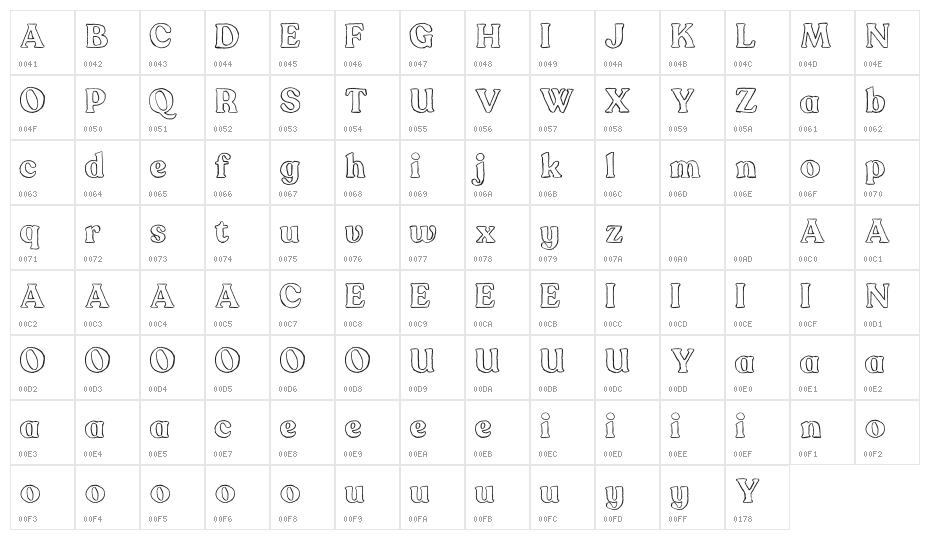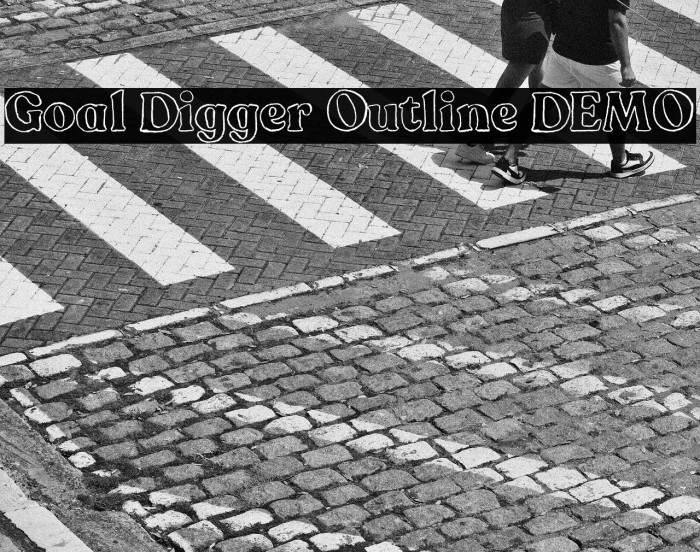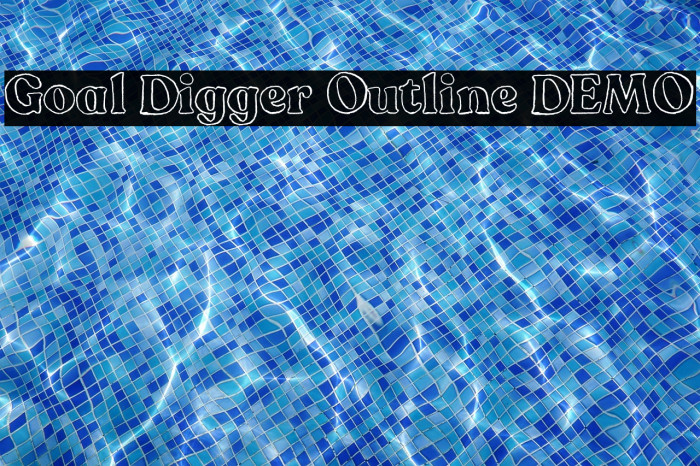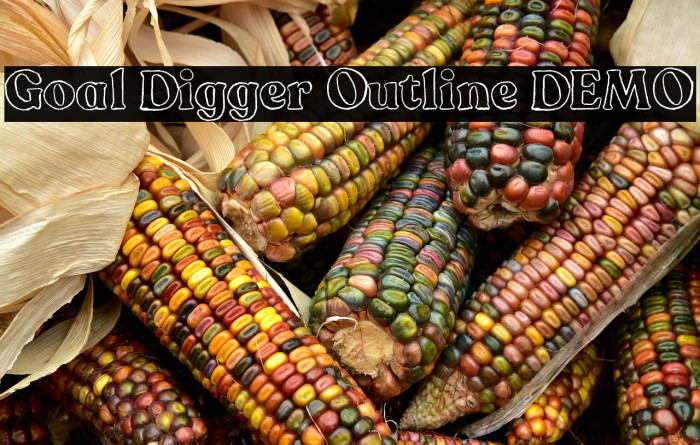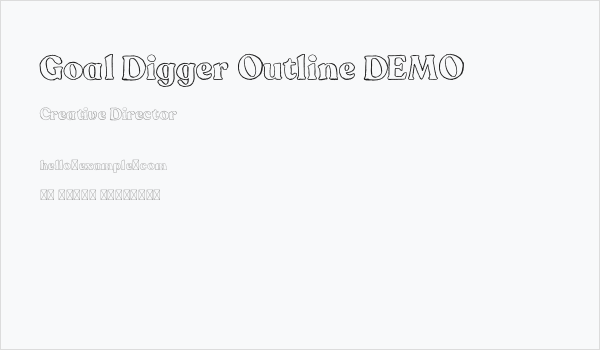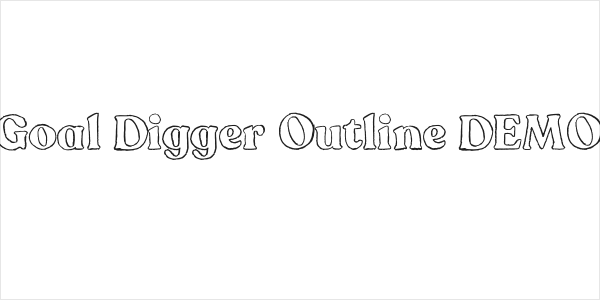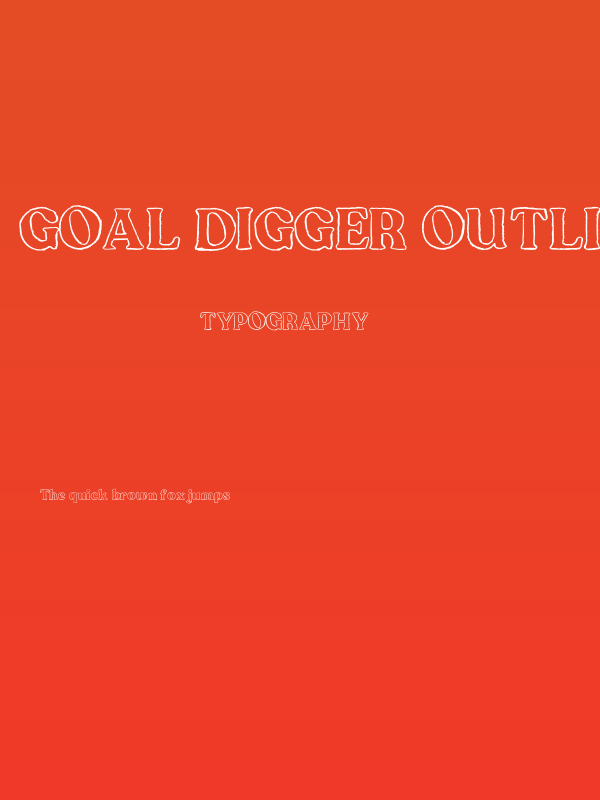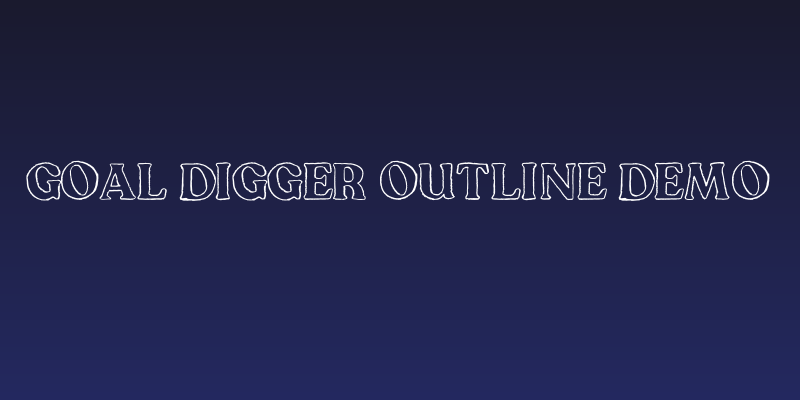
Goal Digger Outline DEMO Font
Goal Digger Outline DEMO Description
This font features a playful and bold outline style, characterized by its hand-drawn appearance. The uppercase and lowercase letters exhibit a whimsical, slightly irregular form that adds a casual and artistic touch. The strokes are consistent in width, creating a uniform look across all characters. The font lacks interior fill, emphasizing its outline nature, which makes it ideal for creative projects where a unique and eye-catching text is desired. The absence of special characters suggests a focus on basic alphabetic and numeric representation.
| Proposed Projects | Ideal for posters, children's book covers, playful branding, and artistic designs. |